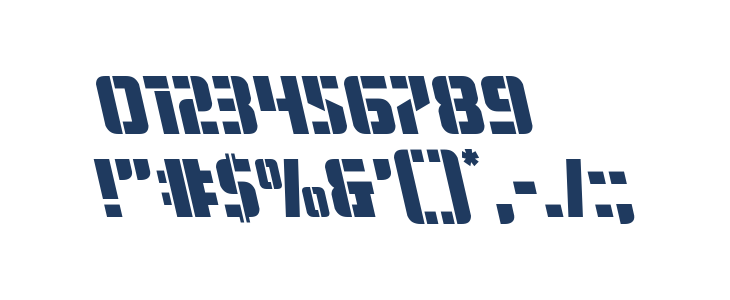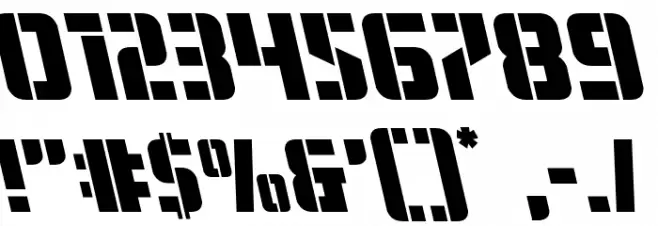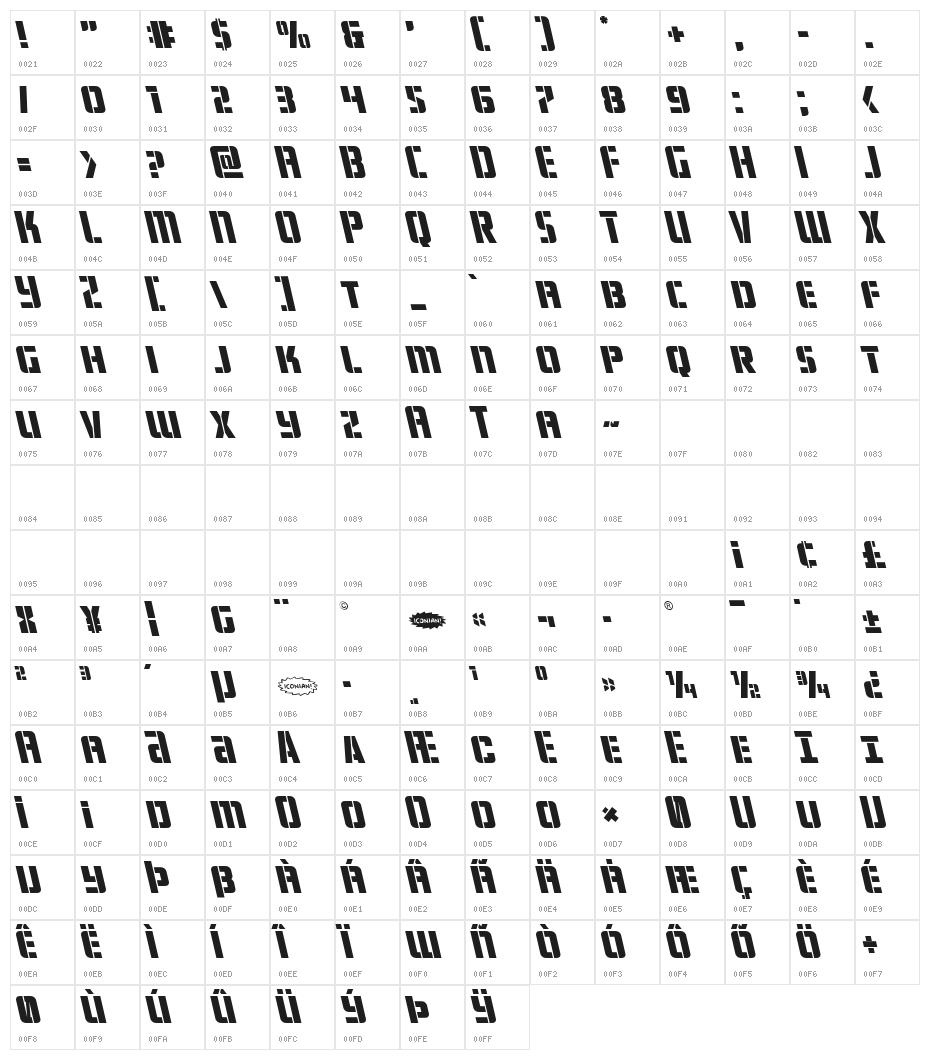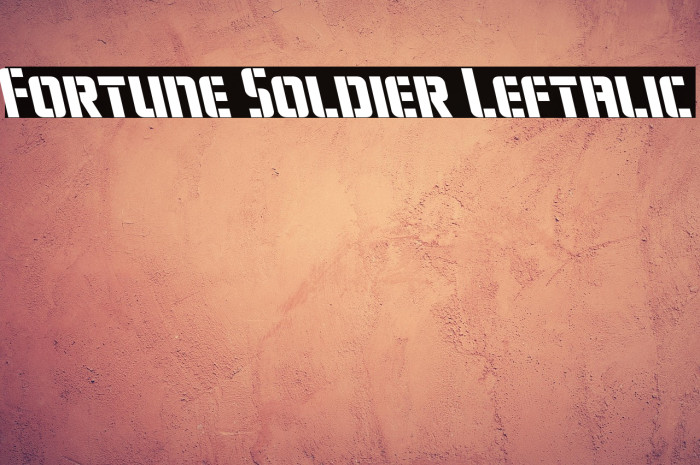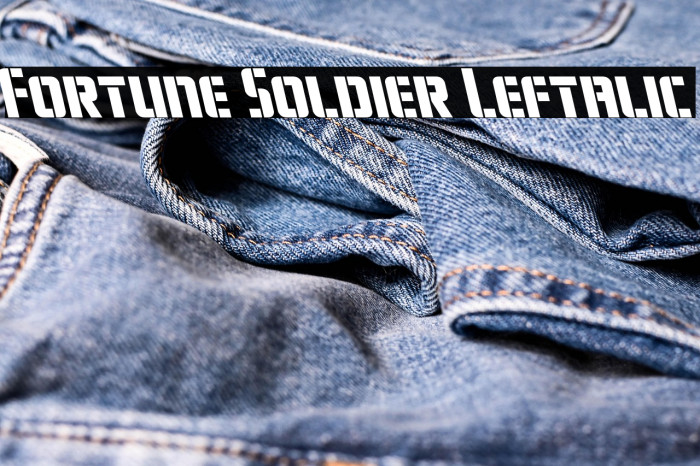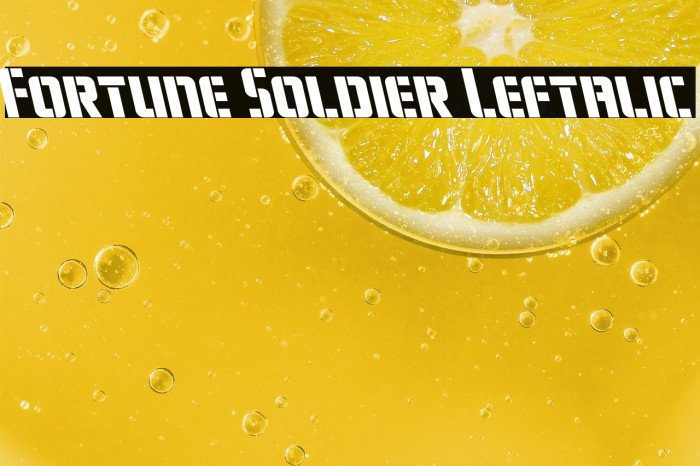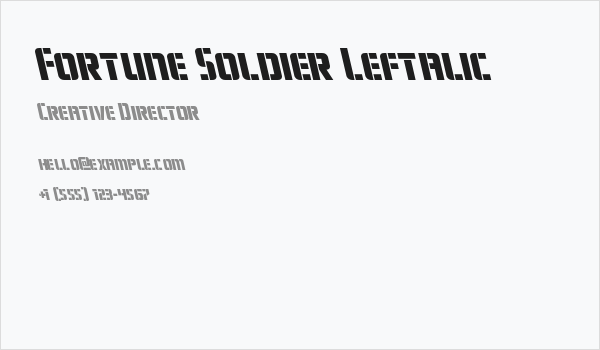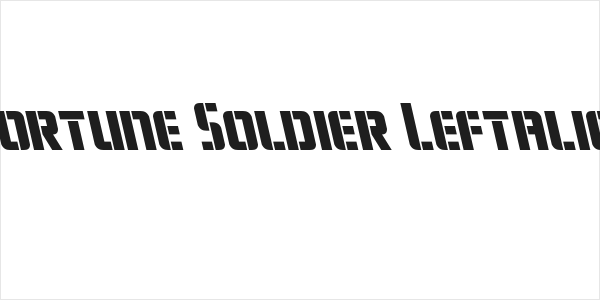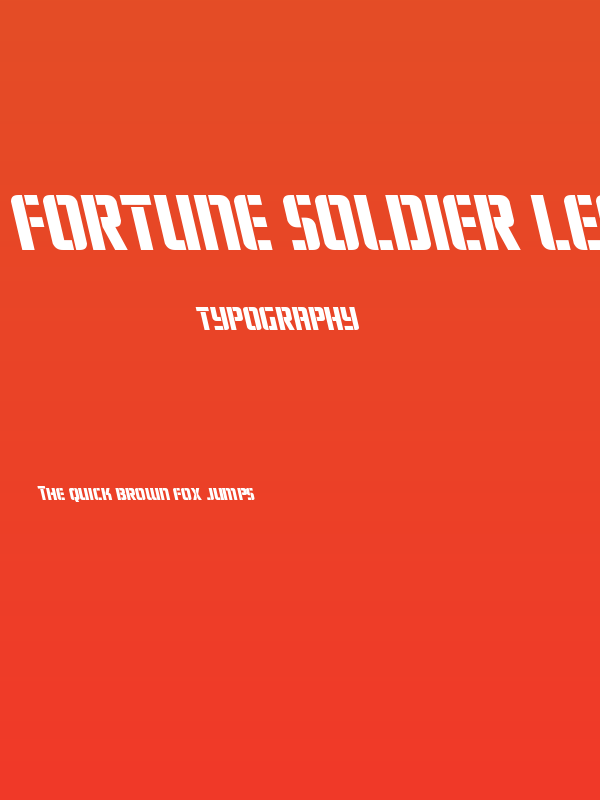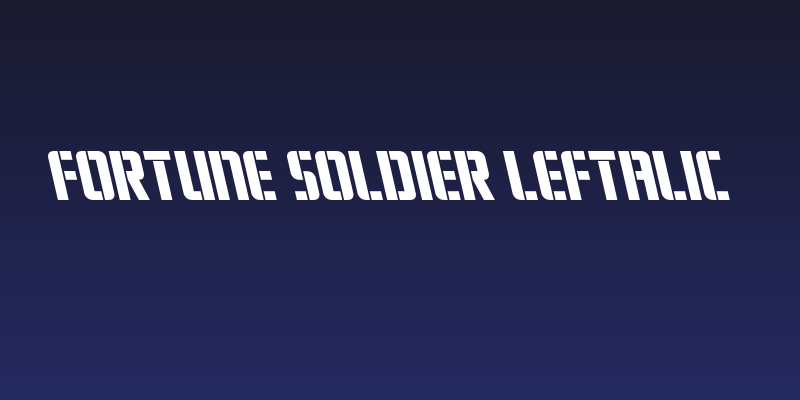
Fortune Soldier Leftalic Font
Fortune Soldier Leftalic Description
This font features a bold, geometric design with a distinct stencil-like appearance. The characters are constructed with thick, blocky strokes that are interrupted by strategic gaps, creating a dynamic and industrial feel. The overall style is modern and assertive, making it ideal for attention-grabbing headlines or branding that requires a strong visual impact. The uppercase and lowercase letters are consistent in style, with numerals and special characters following the same bold and angular design. The font's unique structure lends itself well to projects that aim to convey strength, innovation, or a futuristic aesthetic.